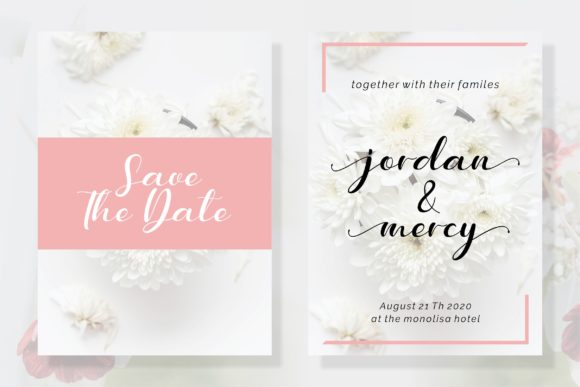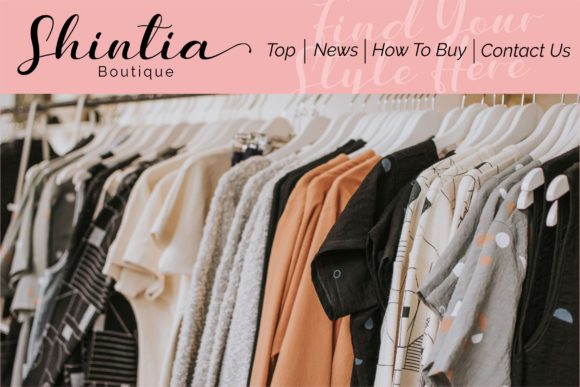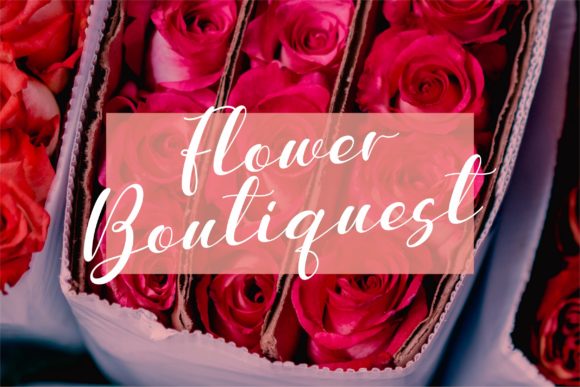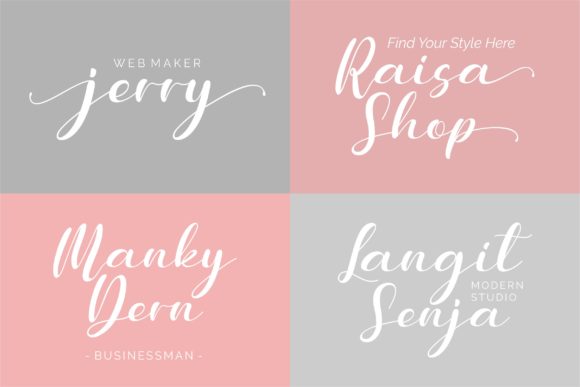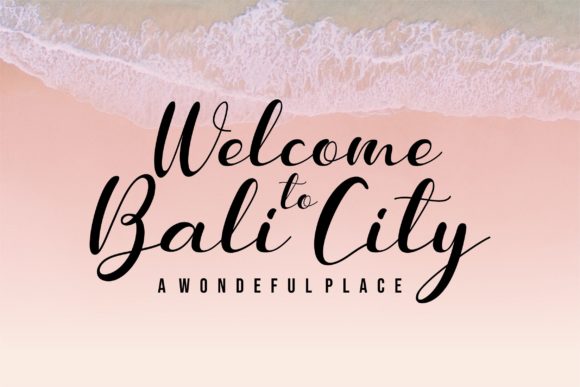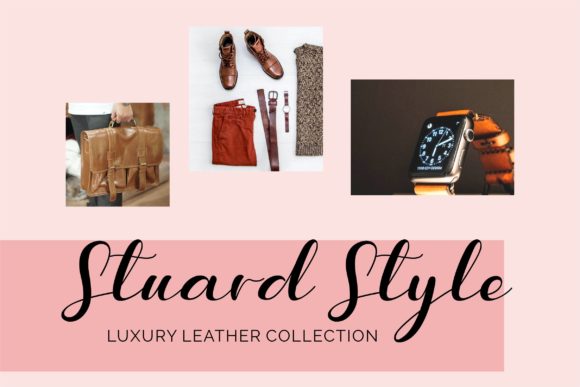
Introduction to Meuthia Font
As designers, we’ve all been there – staring at a blank page, searching for the perfect font to bring our creative project to life. The search can be overwhelming, especially when we’re looking for a high-quality font that exudes elegance and sophistication. But what if I told you that you’ve been searching for the wrong thing? What if I told you that there’s a font out there that’s not only beautiful but also offers a wealth of special features to make your design process a breeze?
Enter the Meuthia Font, a stunning combination of timeless elegance and authentic calligraphy that’s sure to elevate your designs to the next level. With its classic style and friendly feel, this font is perfect for creating gorgeous wedding invitations, beautiful stationery art, eye-catching social media posts, and cute greeting cards. And the best part? It’s available for free download, making it a valuable design resource for any creative project.
Whether you’re a seasoned designer or just starting out, the Meuthia Font is a must-have in your design arsenal. Its transparent background and PUA encoded features make it easy to access and use, and its wealth of special features – including alternate glyphs and ligatures – will take your designs to new heights. So why wait? Download the Meuthia Font today and discover a whole new world of design possibilities.
Key Features of Meuthia Font
- High-quality design for creative projects, offering a sophisticated and elegant look.
- Features a unique, cursive script style with intricate details, making it ideal for invitations, quotes, and other creative applications.
Honest Review: Meuthia Font
As a designer, I’m always on the lookout for high-quality fonts that can elevate my creative project to the next level. Recently, I stumbled upon the Meuthia Font, and I must say, it’s been a game-changer for me.
What works well with the Meuthia Font is its unique and elegant design. It’s perfect for creating a sophisticated look and feel in any design project. The font is available for free download, which is a definite plus. I appreciate the transparency of the creator, who has made this amazing font available to designers worldwide.
- ✨ Elegant and sophisticated look
However, I did encounter a few limitations with the Meuthia Font. The font family is relatively small, and it may not be suitable for large-scale designs. Additionally, the font may not be compatible with all design software, which can be a bit frustrating.
Overall, I’m thoroughly impressed with the Meuthia Font. Its unique design and free availability make it an excellent addition to any designer’s toolkit. With a few tweaks, it could be even more versatile and user-friendly.
To get the most out of the Meuthia Font, use it in combination with a transparent background to create a clean and modern design. Experiment with different font sizes and styles to add visual interest to your project.
The Meuthia Font is ideal for creating logos, branding materials, and other visual elements for your project. It is also perfect for creating social media graphics, presentations, and other design materials.